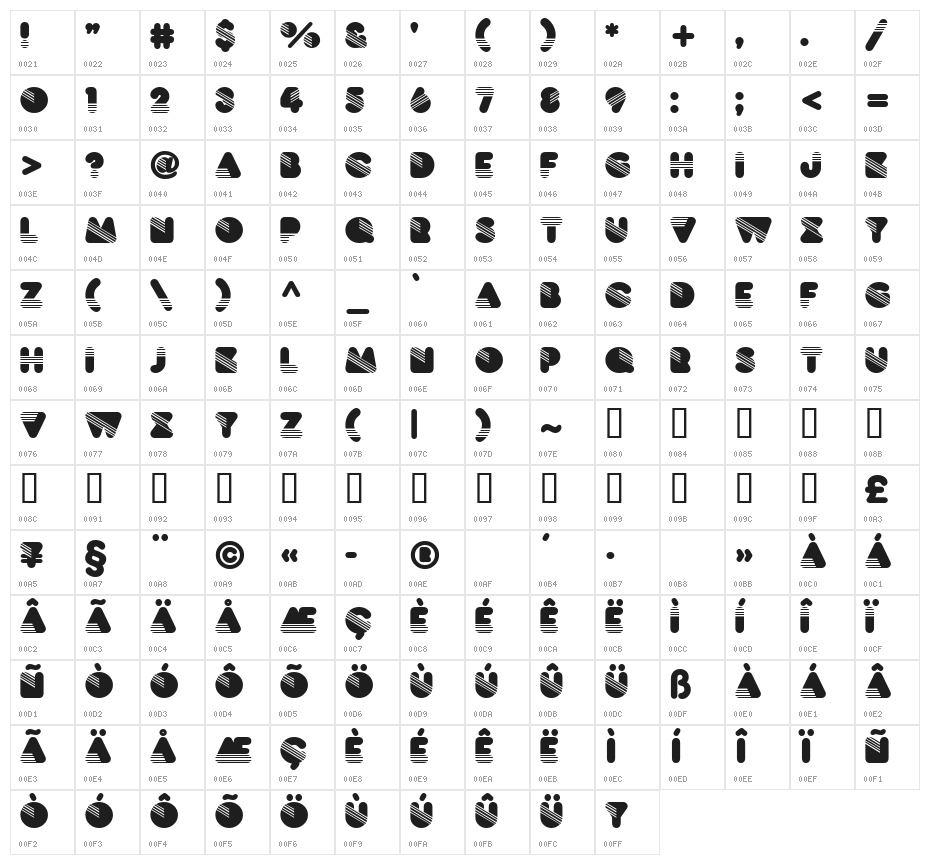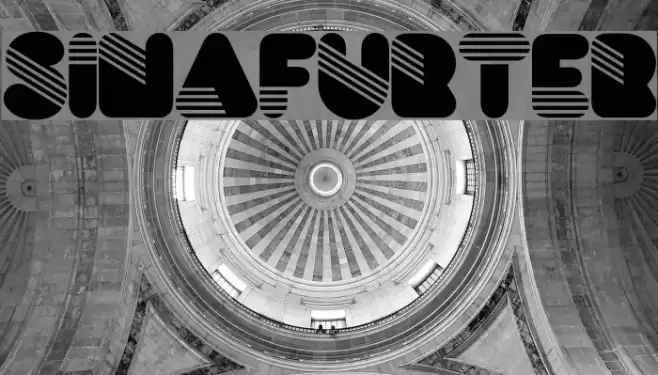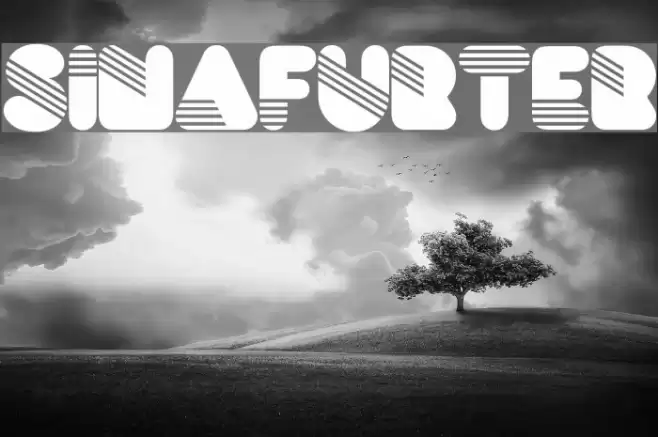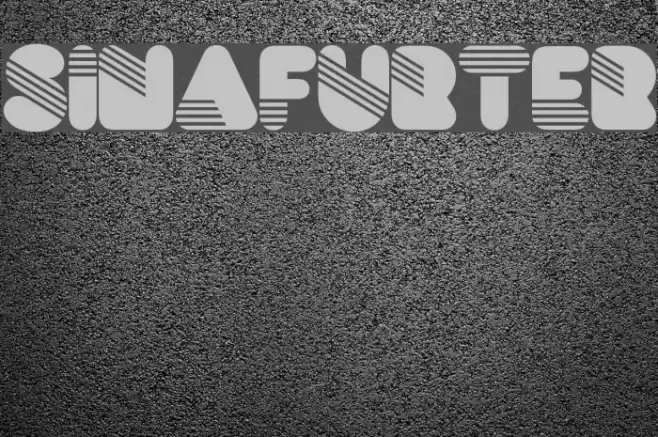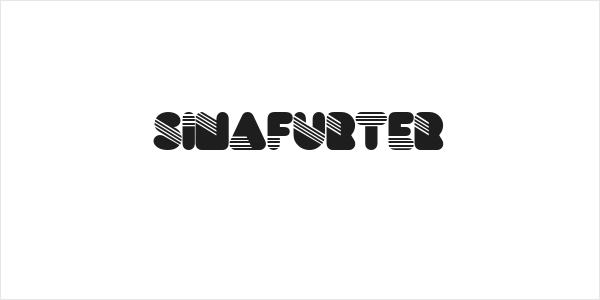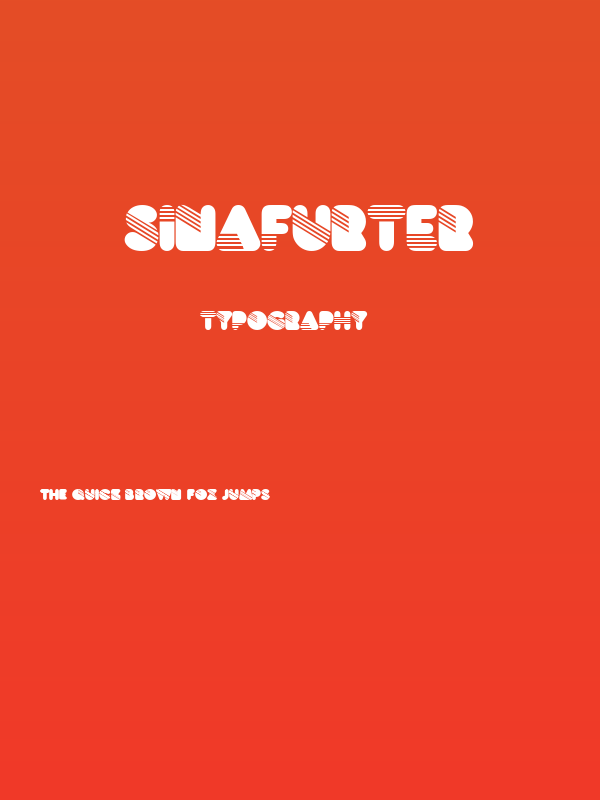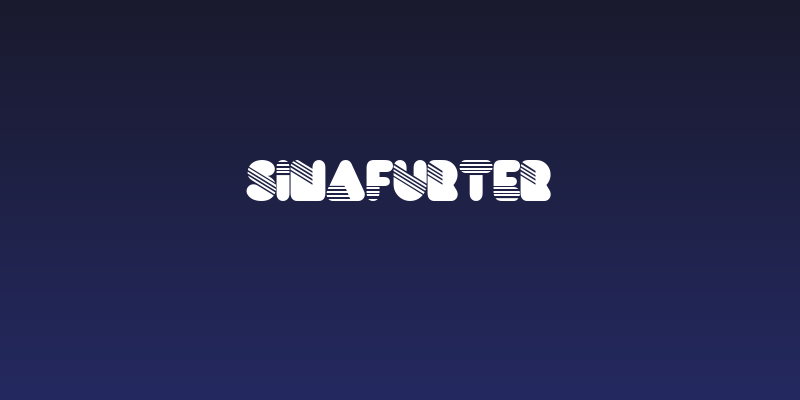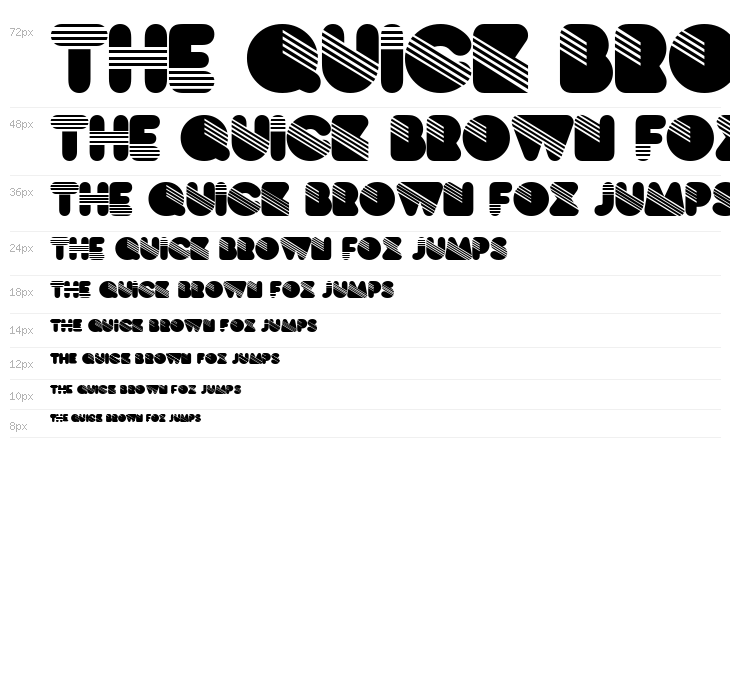
Sinafurter Font
Sinafurter Description
This font features a bold, geometric style with a distinctive striped pattern running through each character. The letters are composed of solid black shapes interspersed with horizontal white lines, creating a striking visual contrast. The overall design is modern and playful, with a sense of movement and rhythm. The characters are wide and rounded, giving them a friendly and approachable appearance. This font is highly decorative, making it ideal for eye-catching designs and creative projects. The unique patterning adds a layer of complexity, making it stand out in any context.
| Proposed Projects | Ideal for branding, posters, album covers, and any project requiring a bold, eye-catching typeface. |